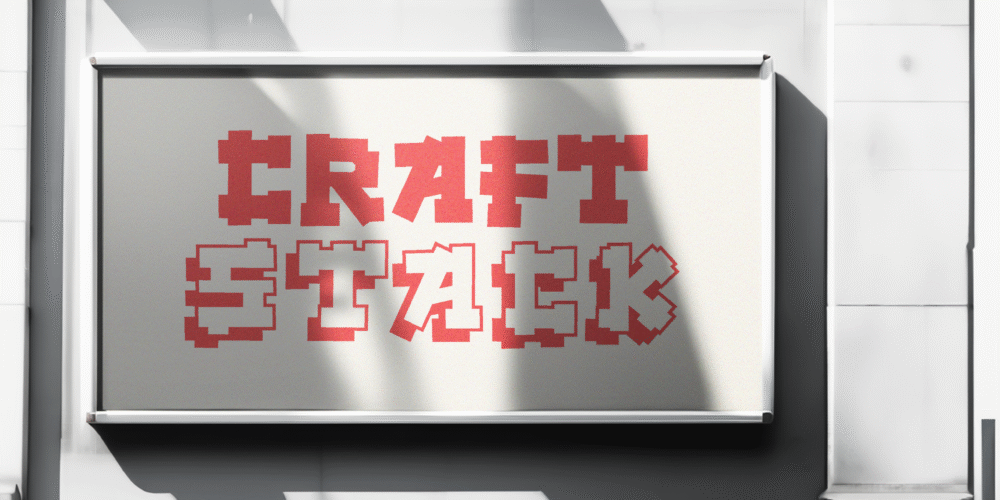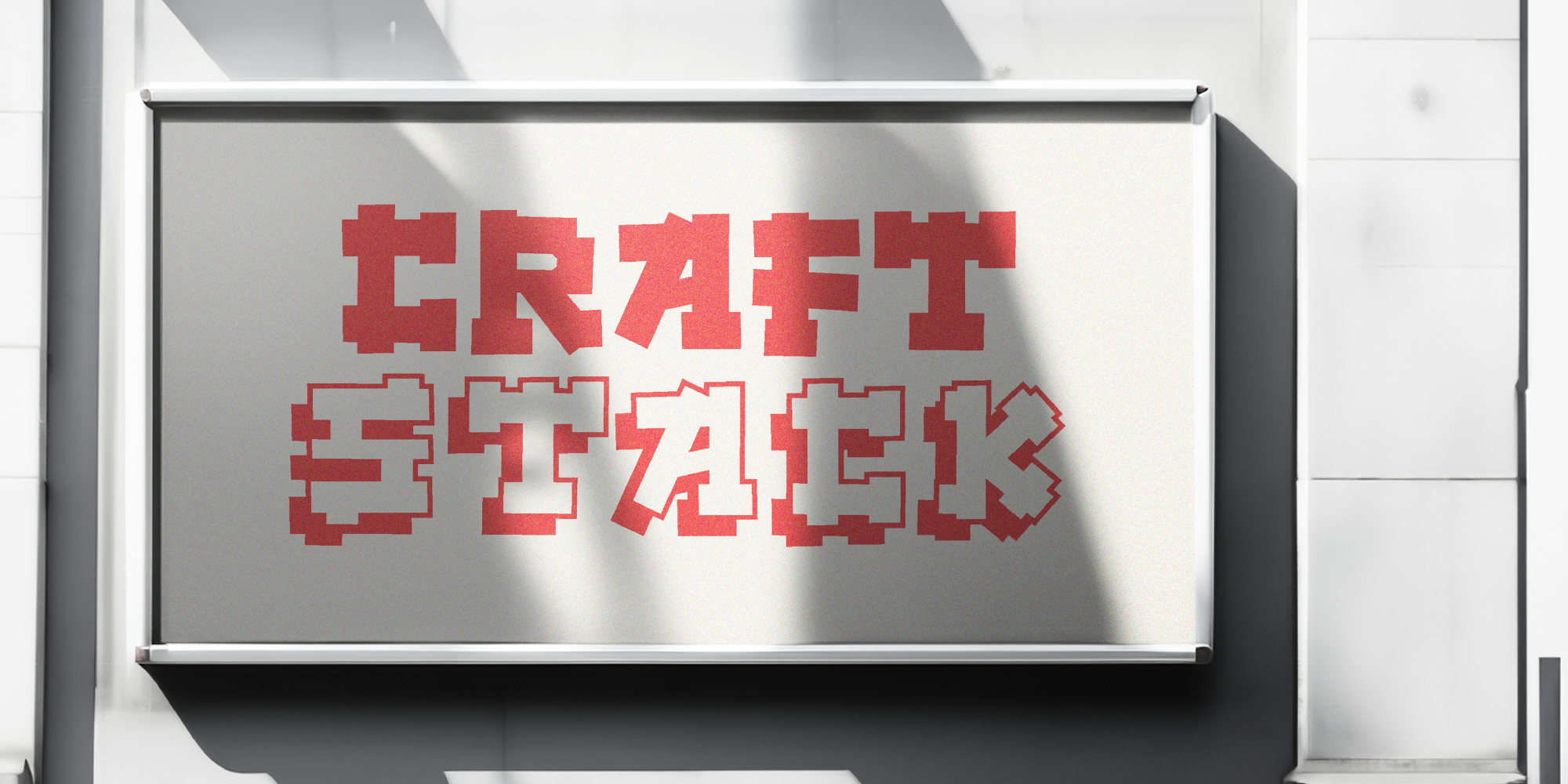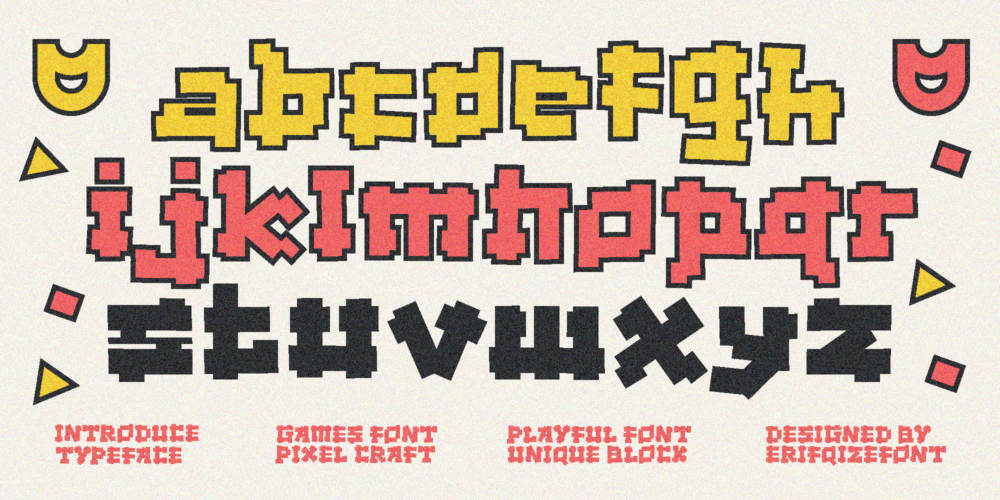
Pop Bricks Font
Pop Bricks Shadow Font
POP BRICKS is a fun and chunky display typeface inspired by pixel games and toy blocks. Built with bold, blocky forms, this font brings playful energy to any design.
It comes in two styles: Regular and Shadow — perfect for creating layered, eye-catching titles. Whether for game logos, kids’ content, or creative packaging, POP BRICKS makes your design stand out.
Pop Bricks – Pixel Games And Toy Blocks Font
POP BRICKS is a fun and chunky display typeface inspired by pixel games and toy blocks